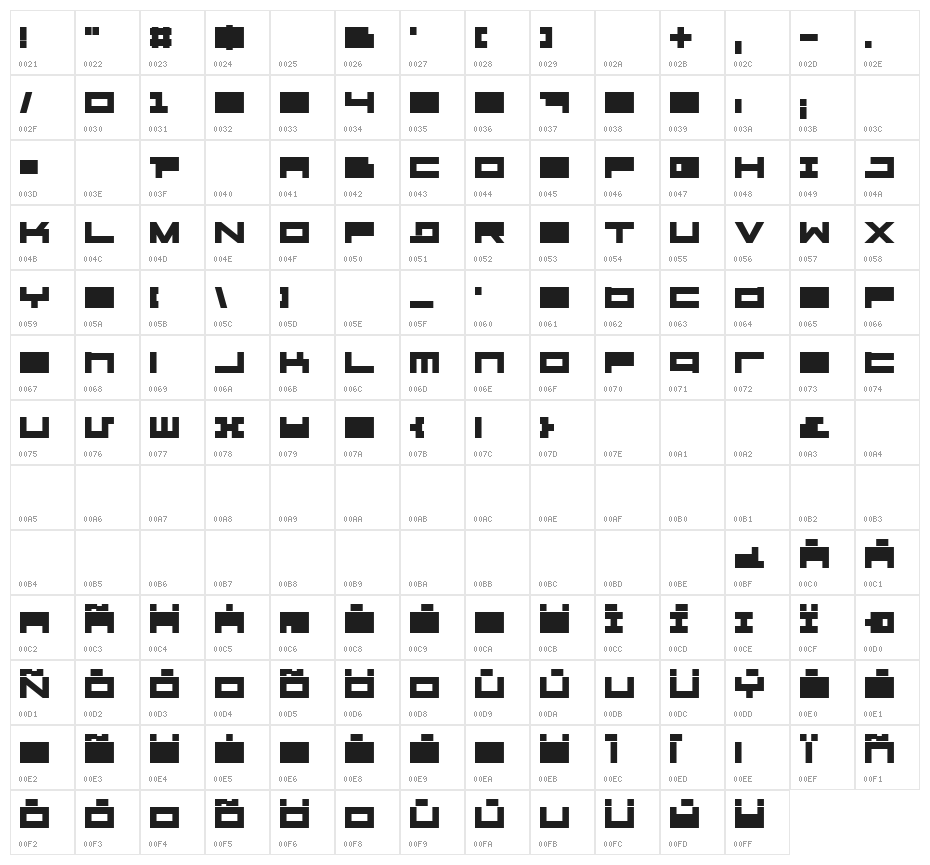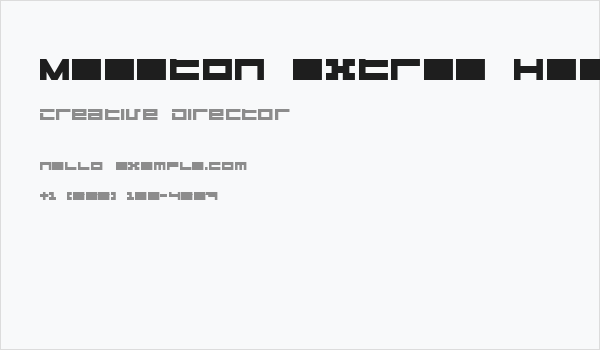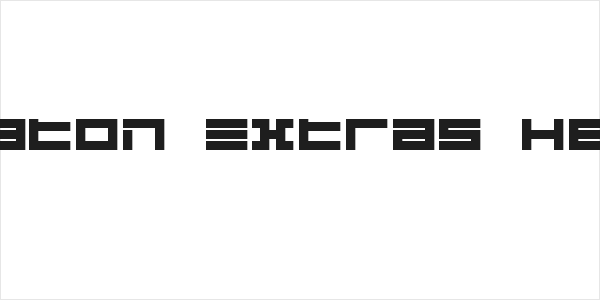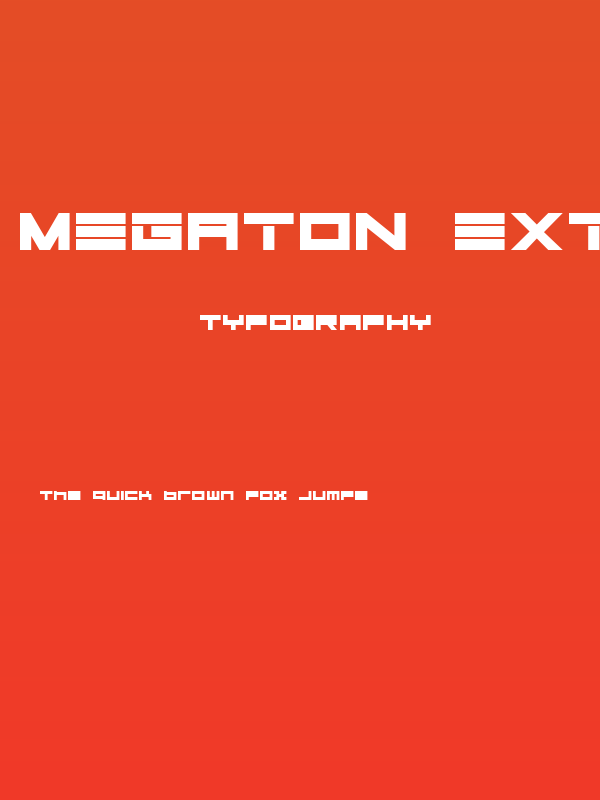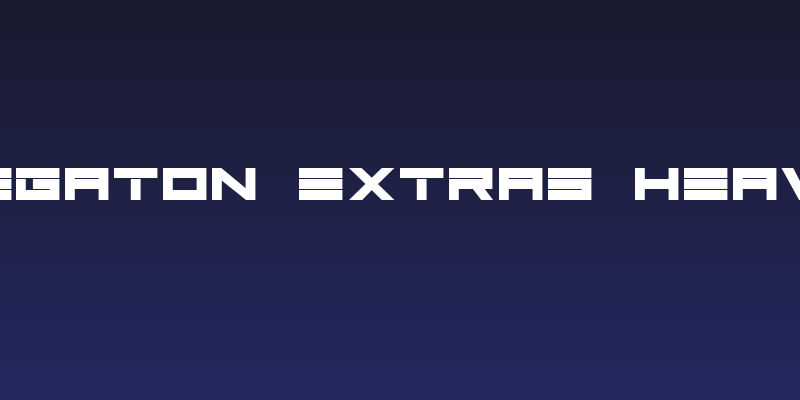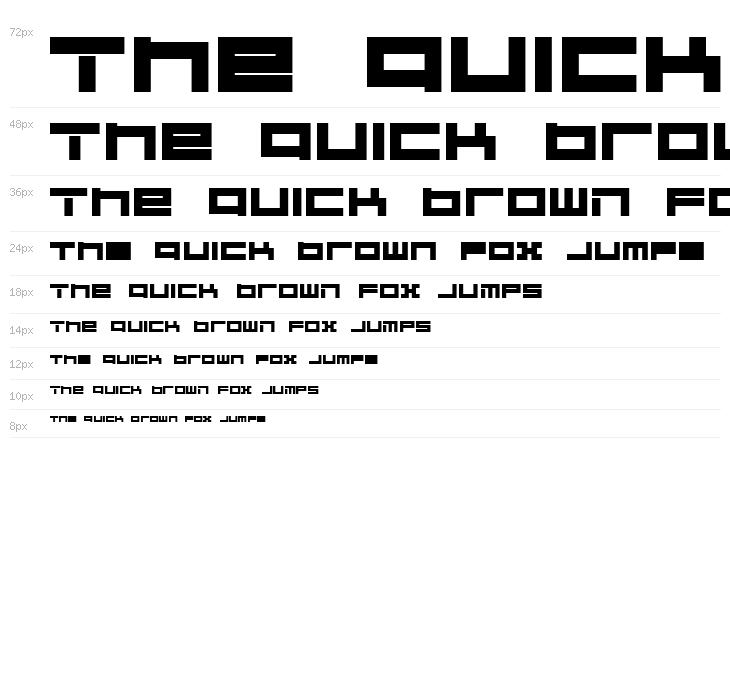
Megaton Extras Heavy Font
Megaton Extras Heavy Description
This font features a bold and geometric design, characterized by its blocky and angular letterforms. The uppercase and lowercase letters maintain a consistent width, creating a uniform appearance. The numerals and special characters follow the same design principles, ensuring a cohesive look across all glyphs. The font's structure is reminiscent of digital or futuristic styles, with a strong emphasis on horizontal and vertical lines. Its heavy weight and solid construction make it highly visible and impactful, suitable for making a strong visual statement.
| Proposed Projects | Ideal for technology branding, video game titles, sci-fi posters, and digital interfaces. |